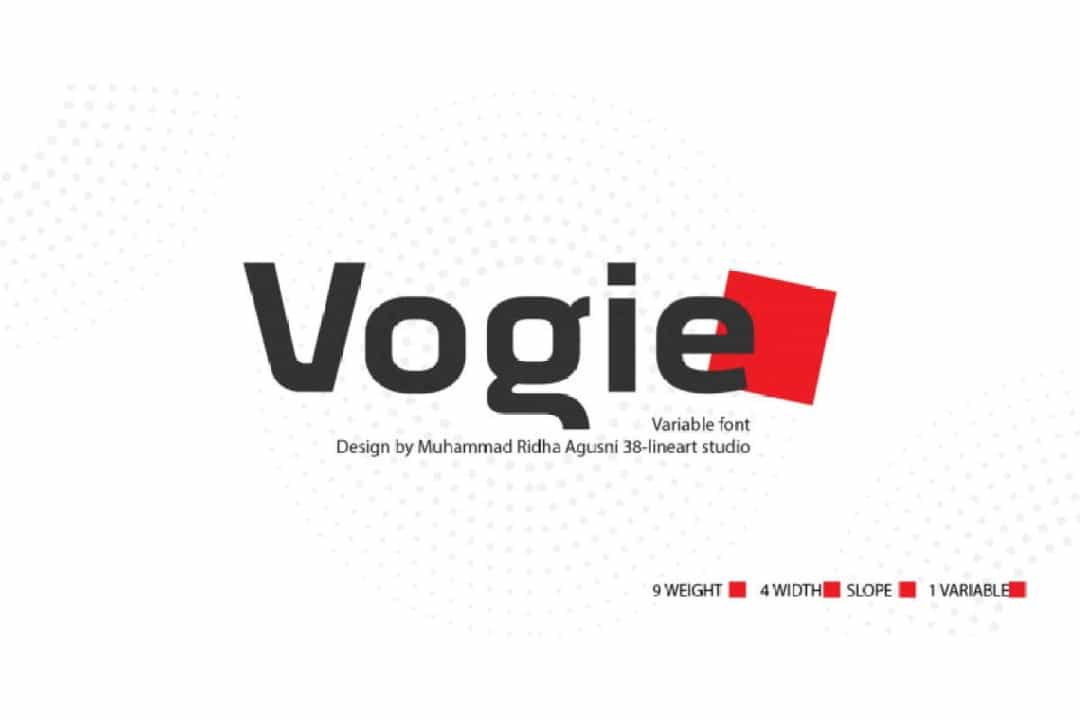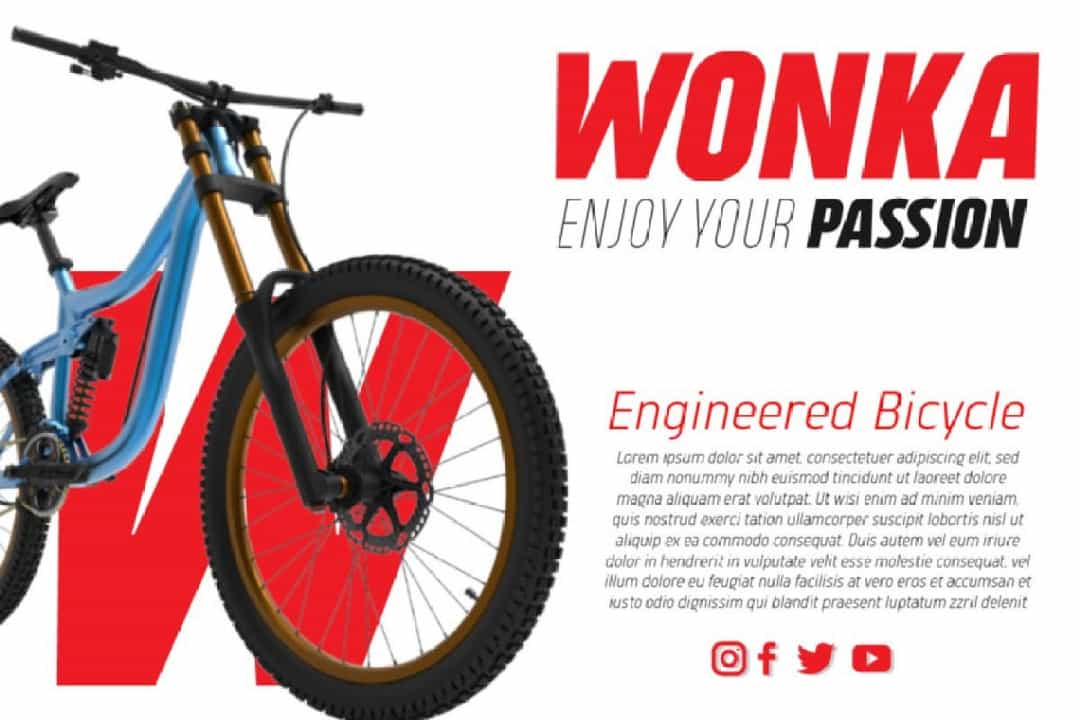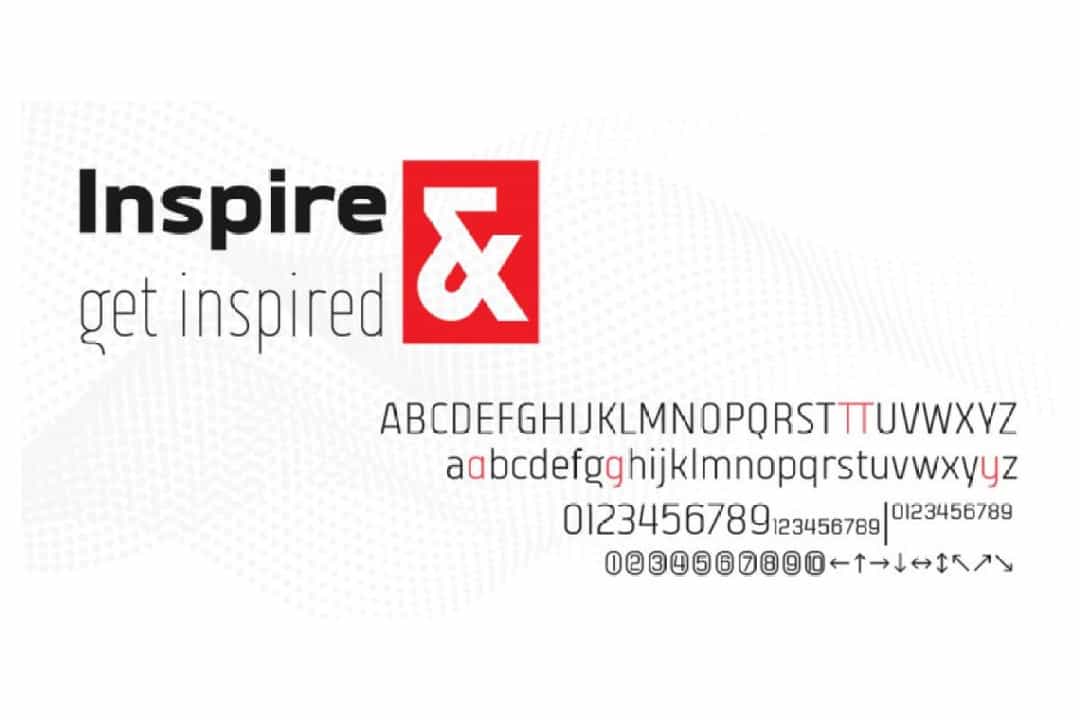
Vogie is an innovative and sporty sans serif font which comes in nine weights and both regular and oblique options, and has 62 fonts combined into one font family for easy usage.